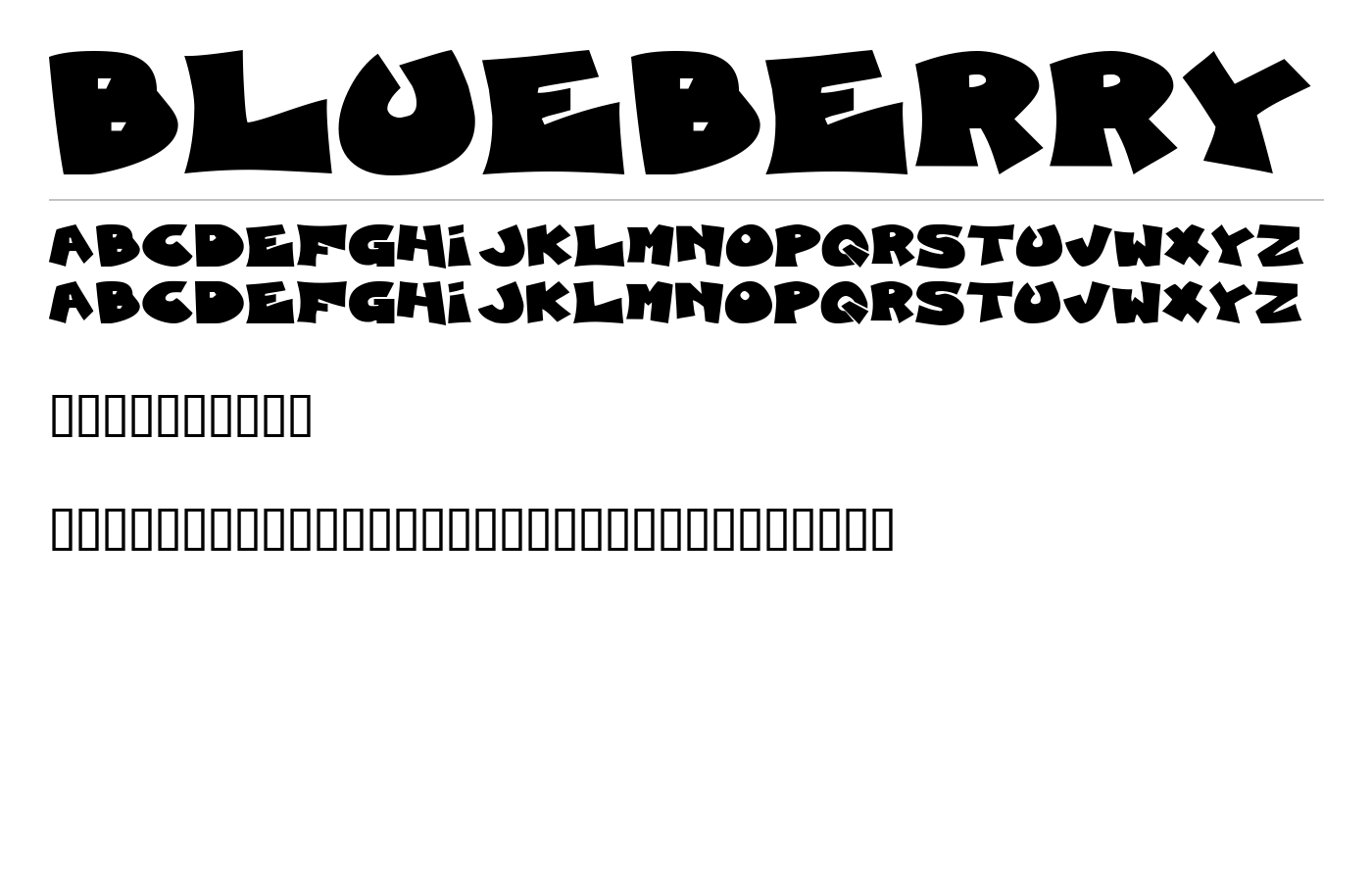
Blueberry is a bold, playful sans serif font with a quirky, hand-drawn feel. Its irregular, chunky letterforms and strong presence make it perfect for fun, informal designs like children's books, posters, or branding that wants to convey energy and creativity. This font stands out best in headlines or logos where its lively personality can shine.
Blueberry Font
About Blueberry Font